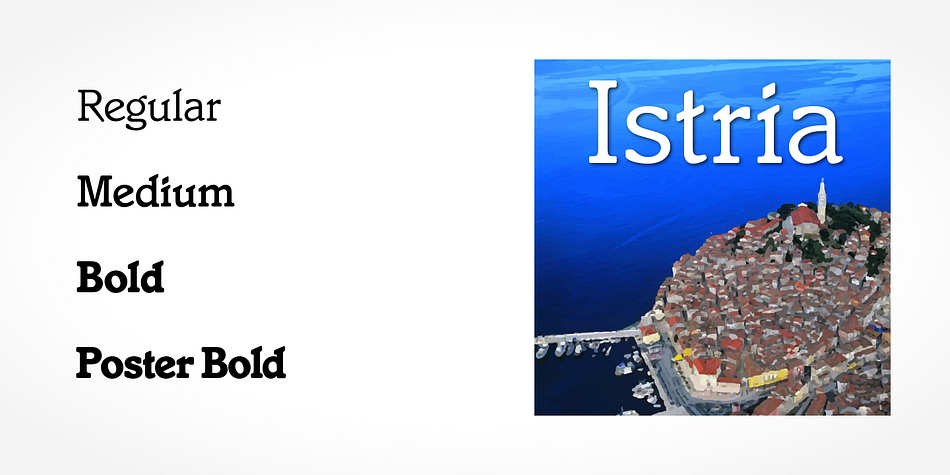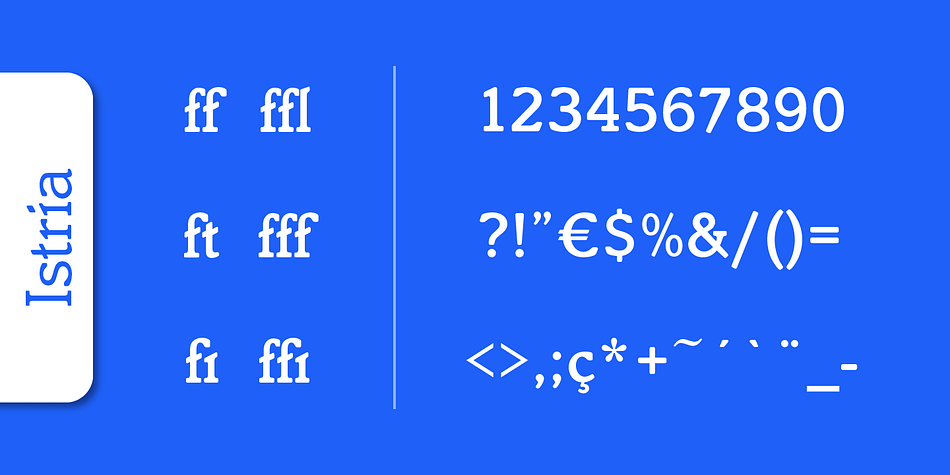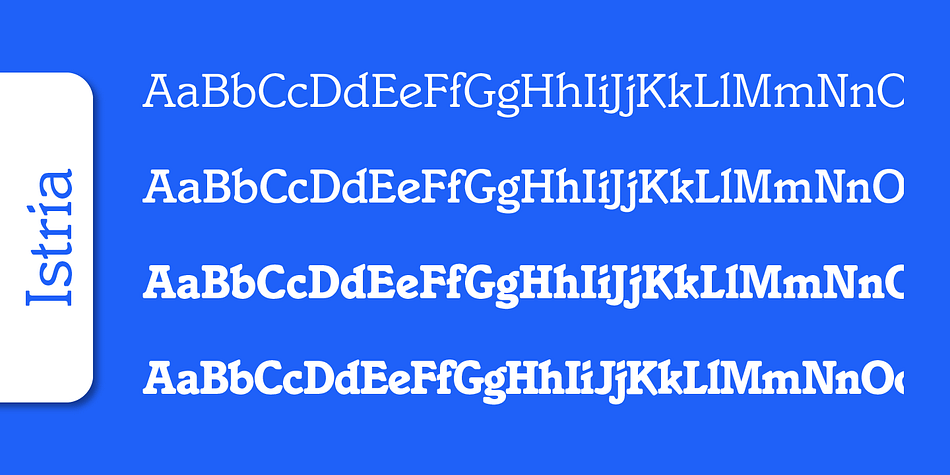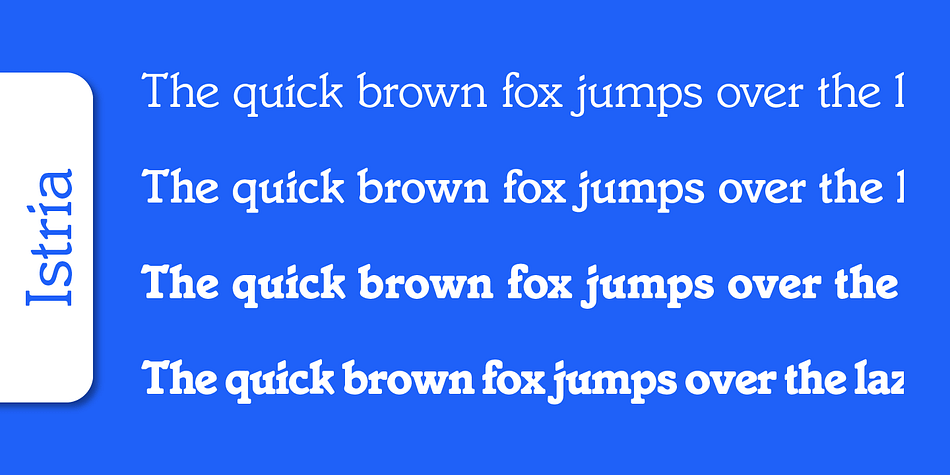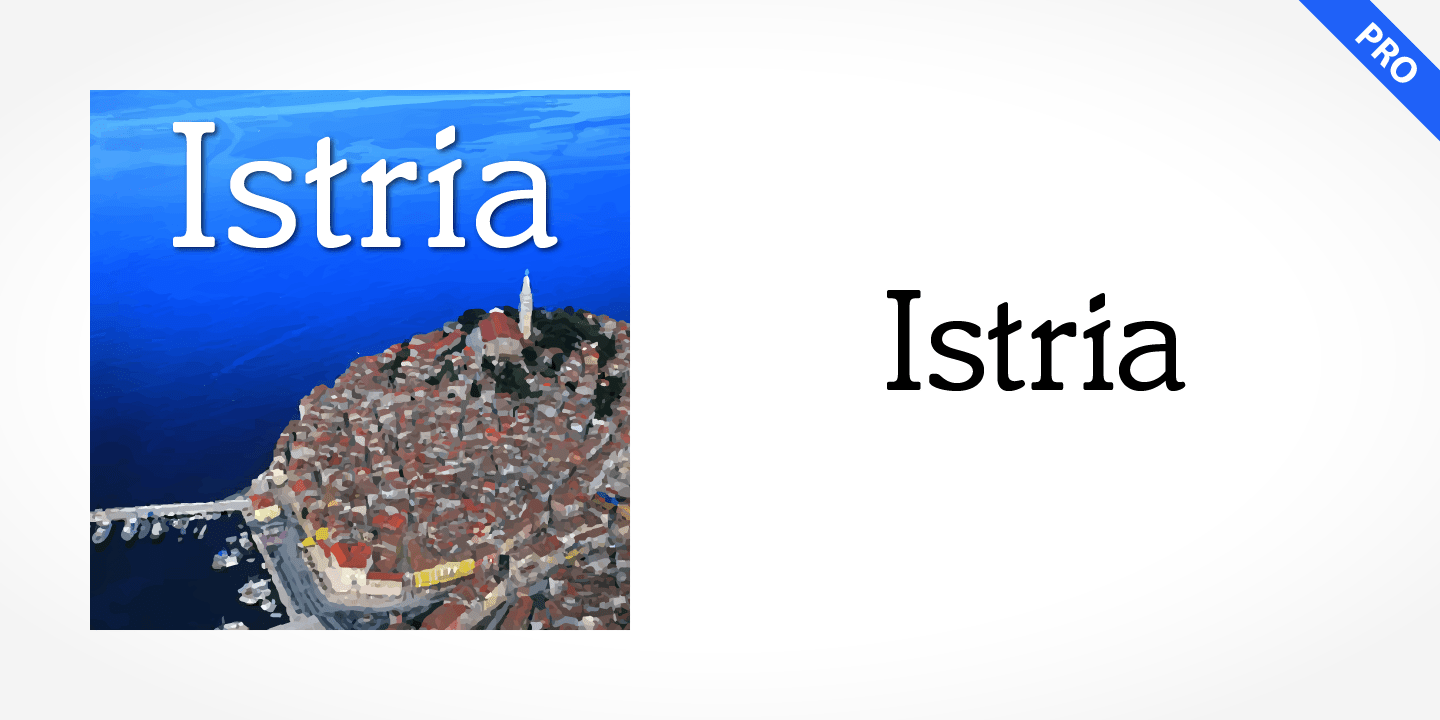
Istria Pro
Istria Pro is a serif and slab serif font family. This typeface has four styles and was published by SoftMaker.
Istria Pro is a refreshingly different serif typeface. At first glance, Istria might seem comparable to any other square serif typeface, but it has a distinctive pattern all its own. Istria can be used as either a display or text font and will give any text a unique look.